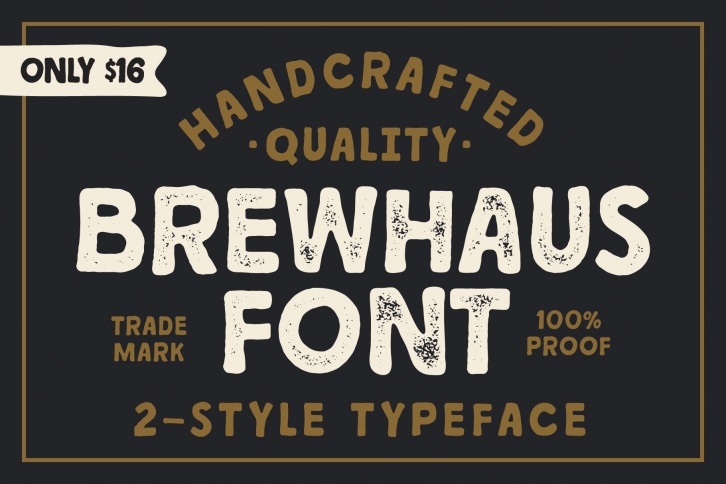
Introducing BREWHAUS A Vintage Handcrafted Font
BREWHAUS is a Vintage font that includes two styles, Regular and Rough. It's packed with a variety of glyphs and alternate characters. BREWHAUS is ready to take on any project for you to create the next unique Brewery Logo, Label, Poster, or Website.
Quickly becoming a foundry favorite, BREWHAUS has the versatility to be not only a robust primary font but also a subtle accent to other Display Typefaces.